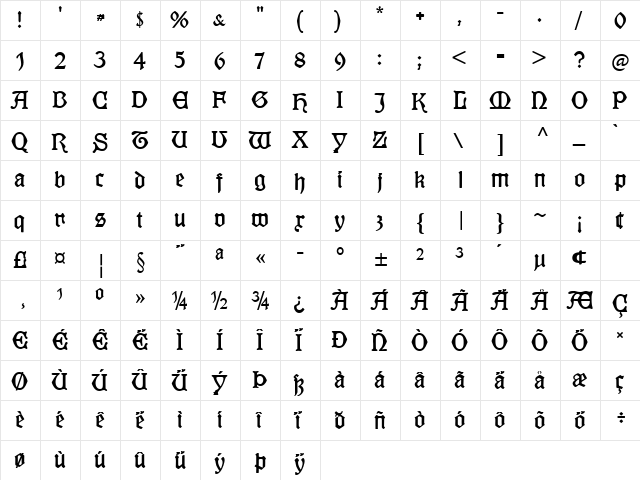
KuenstlerGotisch Regular
| Foundry | Peter Wiegel |
| Designer | W. Grosz for Benjamin Krebs Nachf. in 1900 |
Design Context for KuenstlerGotisch Typeface
KuenstlerGotisch is a composed and adaptable typeface that performs quietly and consistently across a wide range of design contexts.